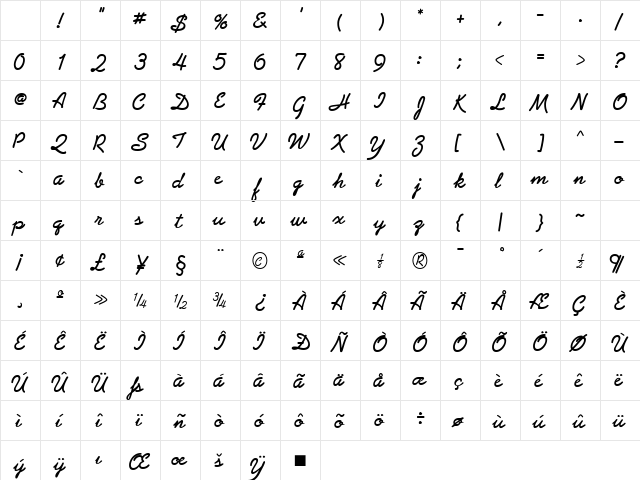
Complete Abrazo Script SSi Bold glyph index. Displaying only characters natively supported by Abrazo Script SSi Bold font.
Abrazo Script SSi flows with the natural rhythm of handwritten lettering, making it ideal for designs that call for warmth and personal expression. Its bold stroke weight gives it real presence on the page.
Font Pairing: Combine Abrazo Script SSi with a simple geometric sans for maximum contrast - the tension between flowing curves and clean structure is a classic typographic pairing.
Pro Tip: Use Abrazo Script SSi for short runs of text - names, titles, or taglines. Extended body copy in script faces tires the eye quickly.